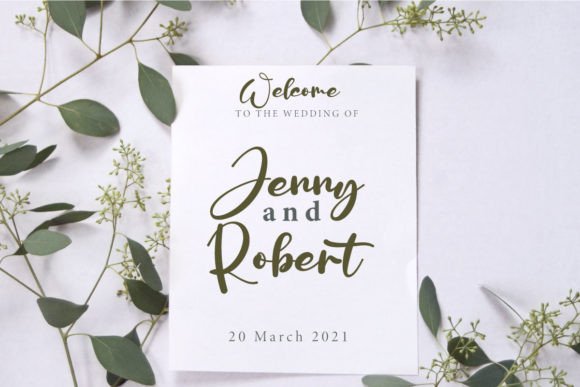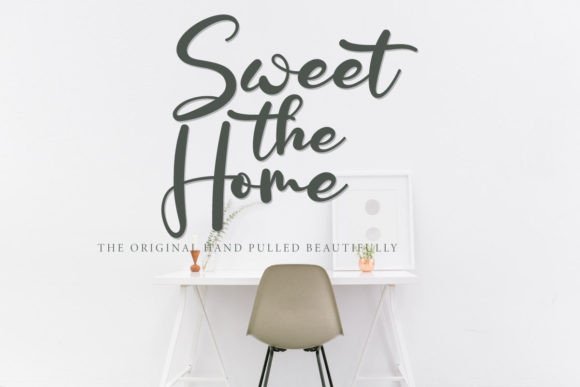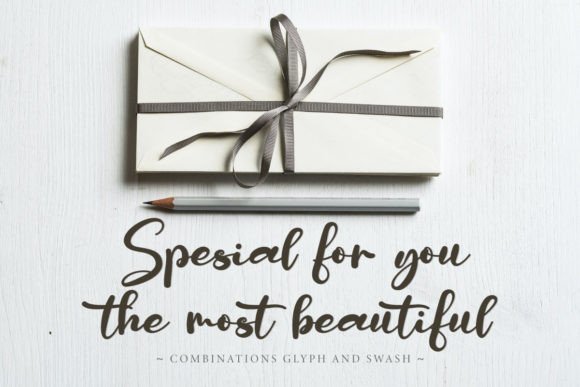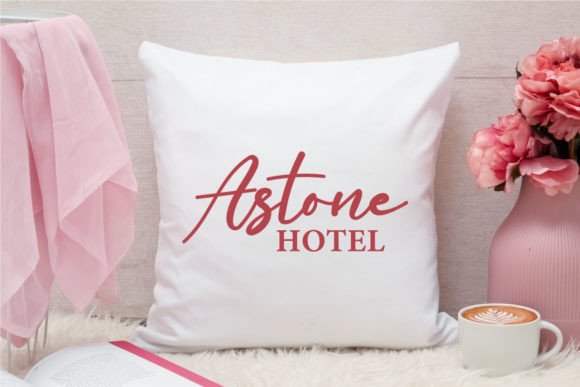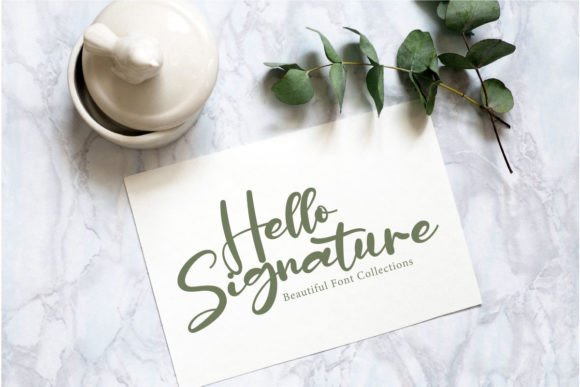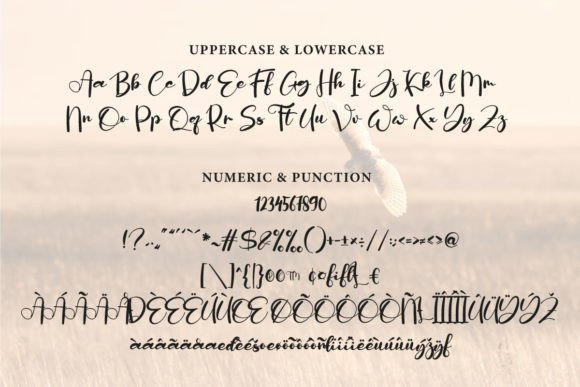
Introduction to Propose Font
Have you ever found yourself stuck in front of your computer, staring at a blank canvas, waiting for inspiration to strike? That’s exactly where I was when I stumbled upon the Propose Font – a beautiful, handwritten font that instantly breathed life into my project. Its elegant script and high-quality design made me feel like I was holding a luxurious pen, carefully crafting each letter by hand.
The Propose Font is more than just a design resource; it’s a valuable asset for any creative project. With its transparent background and impressive typography, it’s perfect for logos, advertisements, and product packaging. Whether you’re a seasoned designer or a DIY enthusiast, this font is a must-have for anyone looking to elevate their designs.
Key Features of Propose Font
- High-quality font with a transparent background, perfect for creative projects and designs.
- Unique characteristics include elegant and sophisticated letterforms, ideal for branding, signage, and advertising projects.
- Supports various languages, making it a versatile font for global creative projects.
Honest Review: Propose Font
I recently stumbled upon the Propose Font, and I must say it’s been a game-changer for my creative projects. The font is a high-quality addition to any design resource, and I appreciate the transparent background that makes it easy to work with.
- ✨ High-quality glyphs: The Propose Font features clean, precise glyphs that are perfect for any creative project.
- ✨ Easy to use: The font is incredibly easy to use, even for those who are new to font design.
- ⚠️ Limited language support: Unfortunately, the Propose Font only supports a limited range of languages, which may be a drawback for some designers.
- ⚠️ No bold or italic versions: While the font itself is great, I wish there were bold and italic versions available for added flexibility.
Overall, I’m thoroughly impressed with the Propose Font. It’s a fantastic design resource that’s perfect for creative projects, and the free download option is a huge bonus. While there are some limitations, I believe the benefits far outweigh the drawbacks.
Propose Font: A High-Quality Design Resource
Propose Font is ideal for creative projects, such as:
Marketing materials (brochures, flyers, etc.).
Branding materials (logos, business cards, etc.).
Presentations (PowerPoint, Keynote, etc.).